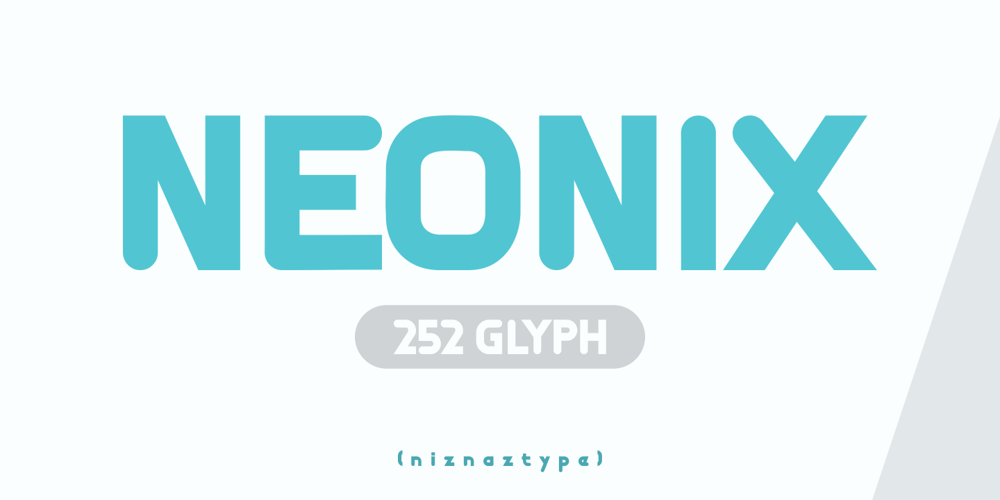
Neonix Font Family was designed by Muhammad Nazarudin and published by Niznaztype. Neonix contains 1 styles and family package options. Neonix is a modern and futuristic typeface. Neonix is a font that suitable for postmodern, futuristic, contemporary styles of graphic design. Neonix have unique glyph characteristic. Neonix is perfect for futuristic graphic art, postmodern arts, editorial design, posters, t-shirt, book cover, headlines, advertising, branding, movies tittling and others. Neonix will make your design have a new style when you make a design with this font.